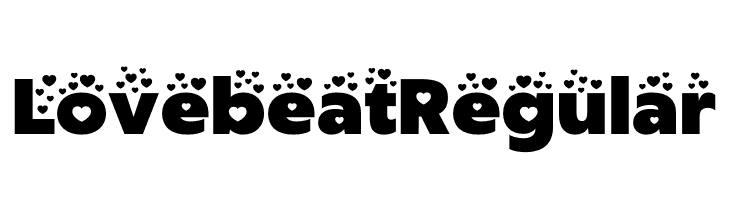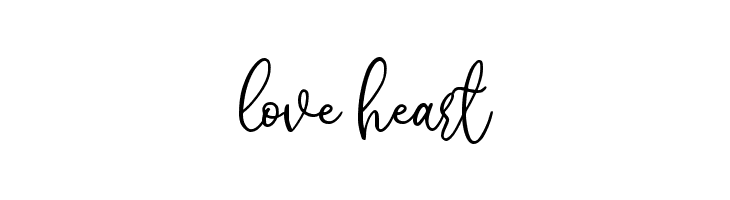
A playful, cursive font with a romantic and handwritten style.
A decorative cursive font with elegant loops and swirls.
A bold, playful font with rounded edges and whimsical details.
A delicate, flowing script font with an elegant handwritten style.
A playful, handwritten font with smooth, flowing curves and a friendly feel.
A cursive, handwritten font with elegant, flowing lines and ornate details.
A lively, cursive font with a handwritten style, perfect for personal and elegant designs.
A romantic script font with letters encased in decorative heart shapes.
A flowing, cursive script font with elegant swashes and intricate loops.